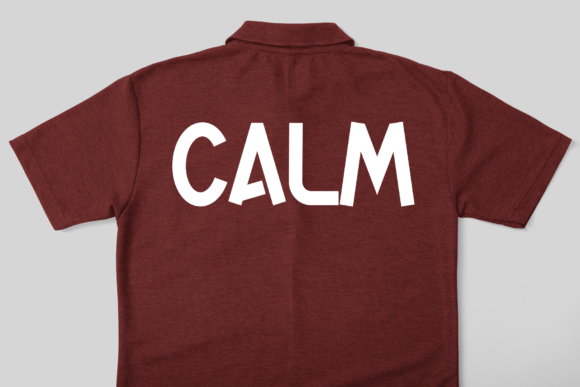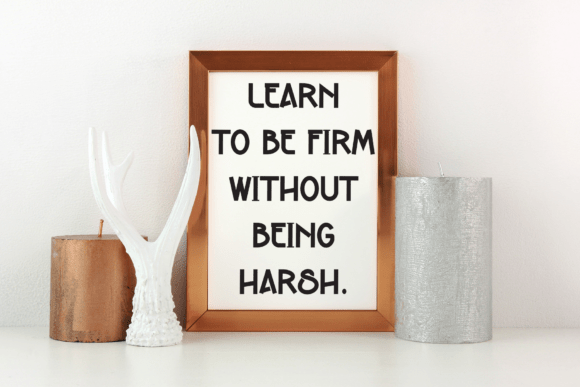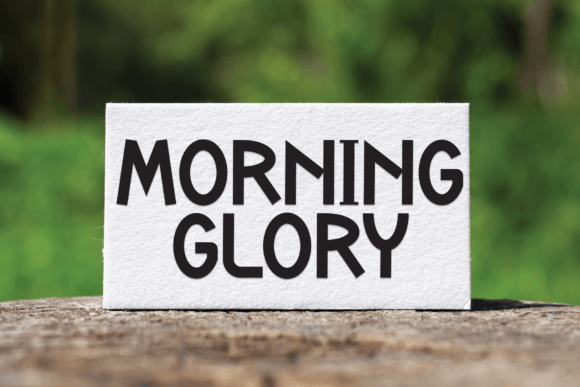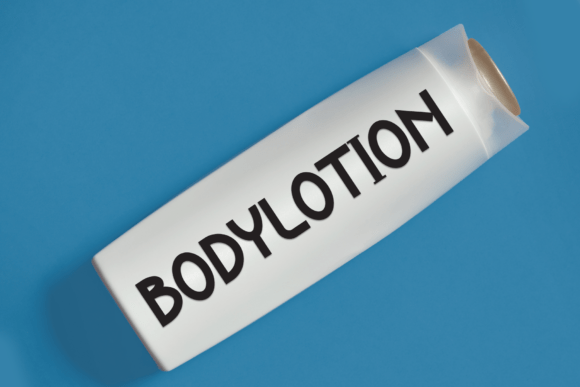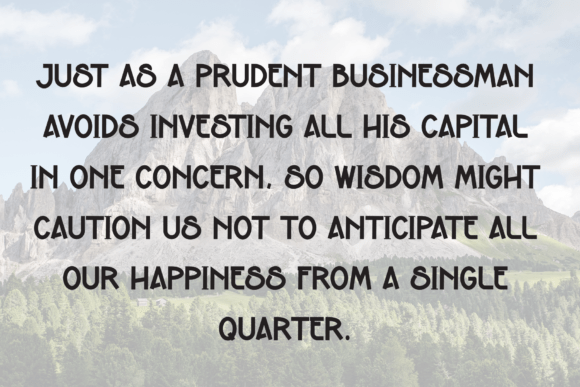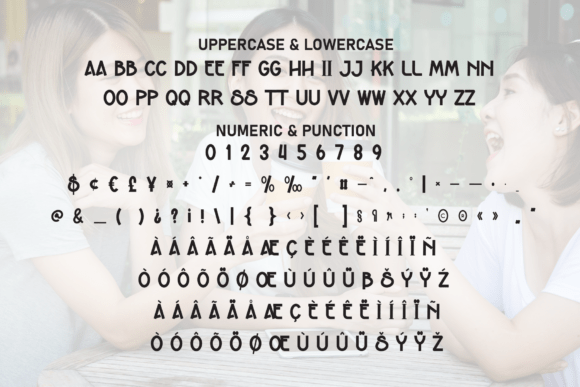
Introducing Hangouth Font: A Charmingly Playful Display Font
Are you tired of using the same old fonts for your designs? Look no further! We’re excited to introduce Hangouth Font, a handcrafted display font that’s truly unique and brimming with personality. With its appealing allure, this font carries a light-hearted vibe that’s perfect for adding a delightful spin to your wedding invitations, greeting cards, and more.
A Font that Exudes Youthful Warmth and Endearing Whimsy
Hangouth Font is designed to bring a touch of playfulness and fun to your design creations. Its charmingly playful and handcrafted design makes it perfect for designers and crafters who want to add a personal touch to their work. Whether you’re creating wedding invitations, greeting cards, or social media graphics, this font is sure to elevate your designs and make them stand out.
Hangouth Font is particularly well-suited for wedding invitations and greeting cards. Its light-hearted and playful vibe makes it perfect for adding a touch of whimsy and romance to your designs. Imagine creating beautiful wedding invitations that set the tone for a joyful and celebratory wedding day. Or, create greeting cards that are truly special and heartfelt, thanks to the unique and charming design of Hangouth Font.
What Makes Hangouth Font So Special?
So, what makes Hangouth Font so special? Here are just a few things that set it apart:
- Handcrafted design: Hangouth Font is a handcrafted display font that’s been carefully designed to be truly unique and one-of-a-kind.
- Playful and light-hearted vibe: This font has a playful and light-hearted vibe that’s perfect for adding a touch of whimsy and fun to your designs.
- Perfect for wedding invitations and greeting cards: Hangouth Font is particularly well-suited for wedding invitations and greeting cards, but it’s also versatile enough to use for a wide range of other design projects.
- Easy to read and use: Despite its playful design, Hangouth Font is easy to read and use, making it perfect for designers and crafters of all skill levels.
How to Use Hangouth Font in Your Designs
Using Hangouth Font in your designs is easy! Here are a few tips to get you started:
- Pair it with other fonts: Hangouth Font pairs well with a wide range of other fonts, so feel free to experiment and find the perfect combination for your design.
- Use it for headings and titles: Hangouth Font is perfect for headings and titles, where its playful and light-hearted vibe can really shine.
- Add some personality with color: Hangouth Font looks great in a wide range of colors, so don’t be afraid to add some personality and whimsy to your design with a bold and bright color scheme.
Get Ready to Elevate Your Design Creations
In conclusion, Hangouth Font is a charmingly playful and handcrafted display font that’s perfect for designers and crafters who want to add a personal touch to their work. With its appealing allure and light-hearted vibe, this font is sure to elevate your design creations and make them stand out. Whether you’re creating wedding invitations, greeting cards, or social media graphics, Hangouth Font is the perfect choice. So why wait? Download Hangouth Font today and start creating designs that are truly unique and special!